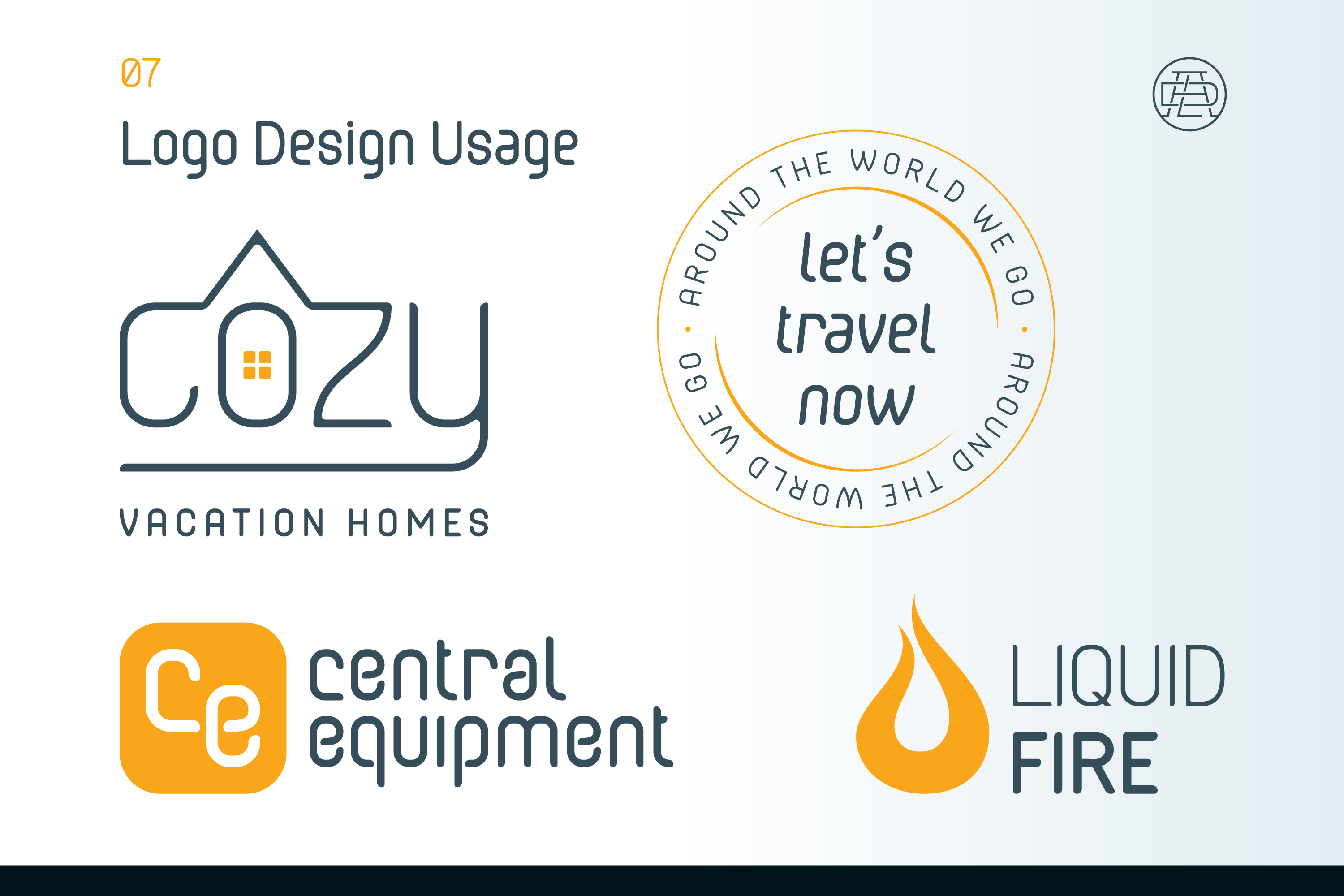
Introducing Cabo Soft Typeface – the upgraded version of our beloved Cabo Rounded Typeface, which first made waves back in 2015. We’re thrilled to present our latest typeface, where we’ve made numerous upgrades and updates, taking it to a whole new level of creativity and elegance!
Each of the style of our Cabo Soft Typeface includes a unique design with a soft and rounded style. It includes the entire letters, numbers, glyphs and accents of the Latin alphabet, like this:
All of the fonts available in this typeface can adapt to any style and are perfect with written text, headlines, logo design, branding and more.
With our Cabo fonts, we’ve always valued your feedback and passion for our designs. With Cabo Soft, we’ve meticulously crafted a range of improvements to ensure it stands out from the original. One of the most exciting additions is the inclusion of more glyphs and accents, giving you more creative possibilities. We’ve also worked on alternate designs for various glyphs, including @, #, numbers, and more, offering even greater versatility.
Cabo Soft continues to embrace the main style and thought behind our Cabo Rounded Typeface – rounded corners that exude a friendly and inviting vibe. This soft and warm aesthetic remains a core feature. However, with these fonts, we’ve taken it up a notch by introducing subtle updates to the design of the letters. Each letter now boasts a unique non-equally rounded termination edge, adding a modern and exclusive touch.
What sets Cabo Soft apart is its ability to strike the perfect balance between modernity and familiarity. While maintaining a friendly and approachable feel, it also exudes a sense of elegance, especially in the Thin and Light styles. This versatile combination opens up a world of design possibilities, catering to various creative needs.
Whether you’re working on eye-catching headlines, engaging paragraphs, stunning logos, or cohesive branding elements, Cabo Soft is a perfect match. Its extensive range of weights and styles ensures seamless integration across diverse design projects. From captivating videos to standout signage, these fonts have the ability to elevate any visual element.
Cabo Soft Typeface covers the entire Latin Alphabet, featuring multiple design alternates for various letters, glyphs, and numbers. The addition of accents for all these alternates provides an even wider canvas for your creativity. It supports all of these languages: Afrikaans, Albanian, Asu, Basque, Bemba, Bena, Cebuano, Chiga, Cornish, Corsican, Danish, English, Estonian, Filipino, Finnish, French, Friulian, Galician, German, Gusii, Ido, Indonesian, Interlingua, Irish, Italian, Javanese, Jju, Kabuverdianu, Kalaallisut, Kalenjin, Kinyarwanda, Lojban, Low German, Luo, Luxembourgish, Luyia, Machame, Makhuwa-Meetto, Makonde, Malagasy, Malay, Manx, Morisyen, North Ndebele, Northern Sotho, Norwegian Bokmål, Norwegian Nynorsk, Nyankole, Occitan, Oromo, Portuguese, Romanian, Romansh, Rombo, Rundi, Rwa, Samburu, Sango, Sangu, Sardinian, Scottish Gaelic, Sena, Shambala, Shona, Soga, Somali, South Ndebele, Southern Sotho, Spanish, Sundanese, Swahili, Swati, Swedish, Swiss German, Taita, Taroko, Teso, Tsonga, Tswana, Vunjo, Walloon, Xhosa, Zulu
With Cabo Soft Typeface, the possibilities are endless. Whether you want to create a friendly and welcoming design or explore a stylish and elegant approach, this typeface empowers you to do just that. Thanks to its comprehensive set of glyphs and accents, this typeface seamlessly adapts to any Latin Alphabet project, while the alternate designs invite you to experiment and innovate.
In conclusion, Cabo Soft Typeface is your ultimate companion for modern and calming design journeys. Embrace the elegance and uniqueness of Cabo Soft, and let your creativity soar. Experience the joy of creating designs that are not only friendly but also stylish and exclusive. Cabo Soft is ready to bring your creative visions to life with its multitude of options and user-friendly charm.